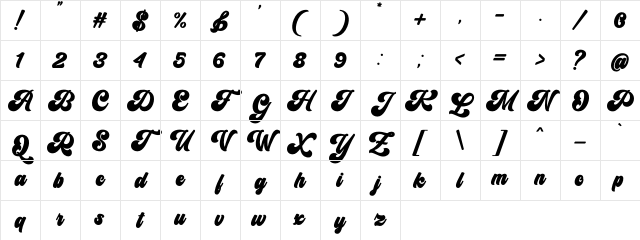
Rinterland Regular Free Font
Rinterland Regular
Foundry: RGB Studio
Designer: MOH. MA'IN
Design Context for Rinterland
Rinterland is a composed and adaptable typeface that performs quietly and consistently across a wide range of design contexts.